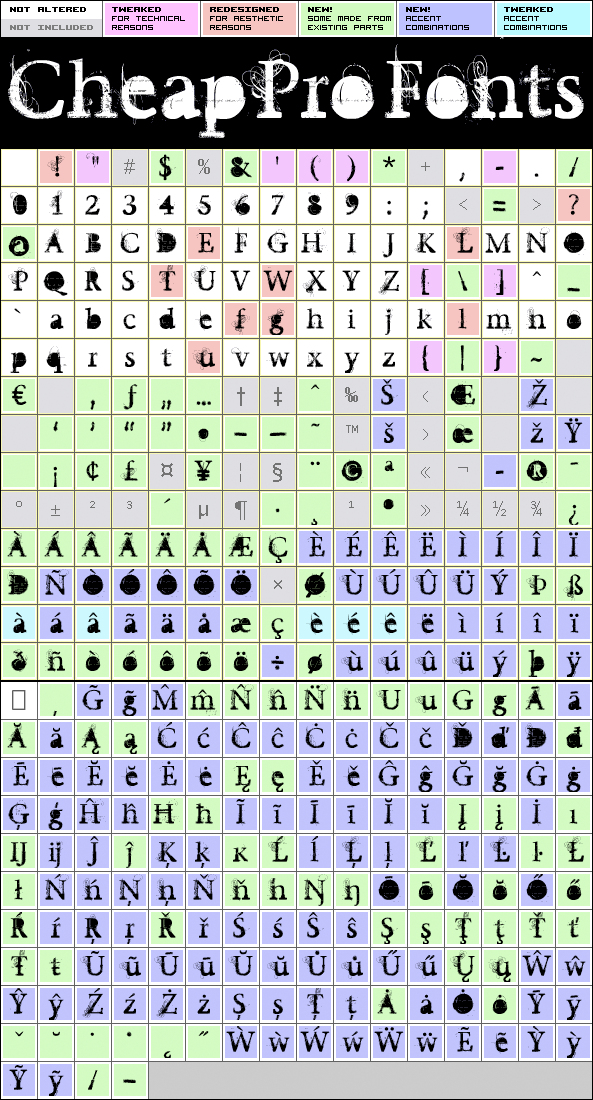
Undecapped Vinyl Pro
Undecapped Vinyl Pro by Guillaume Séguin
Guillaume Séguin
353 glyphs!
(85 in original)
284 class kernpairs
= 5933 kerning pairs
(none in original)
Time to grunge it up again with another detailed masterpiece from Guillaume Séguin. Character set has been greatly expanded, ready for some rough and tough designs in many languages. Rock on!
Undecapped Vinyl Pro is a professionally reworked font that contains an extended character set for setting text in 65 languages requiring more than the basic A-Z!